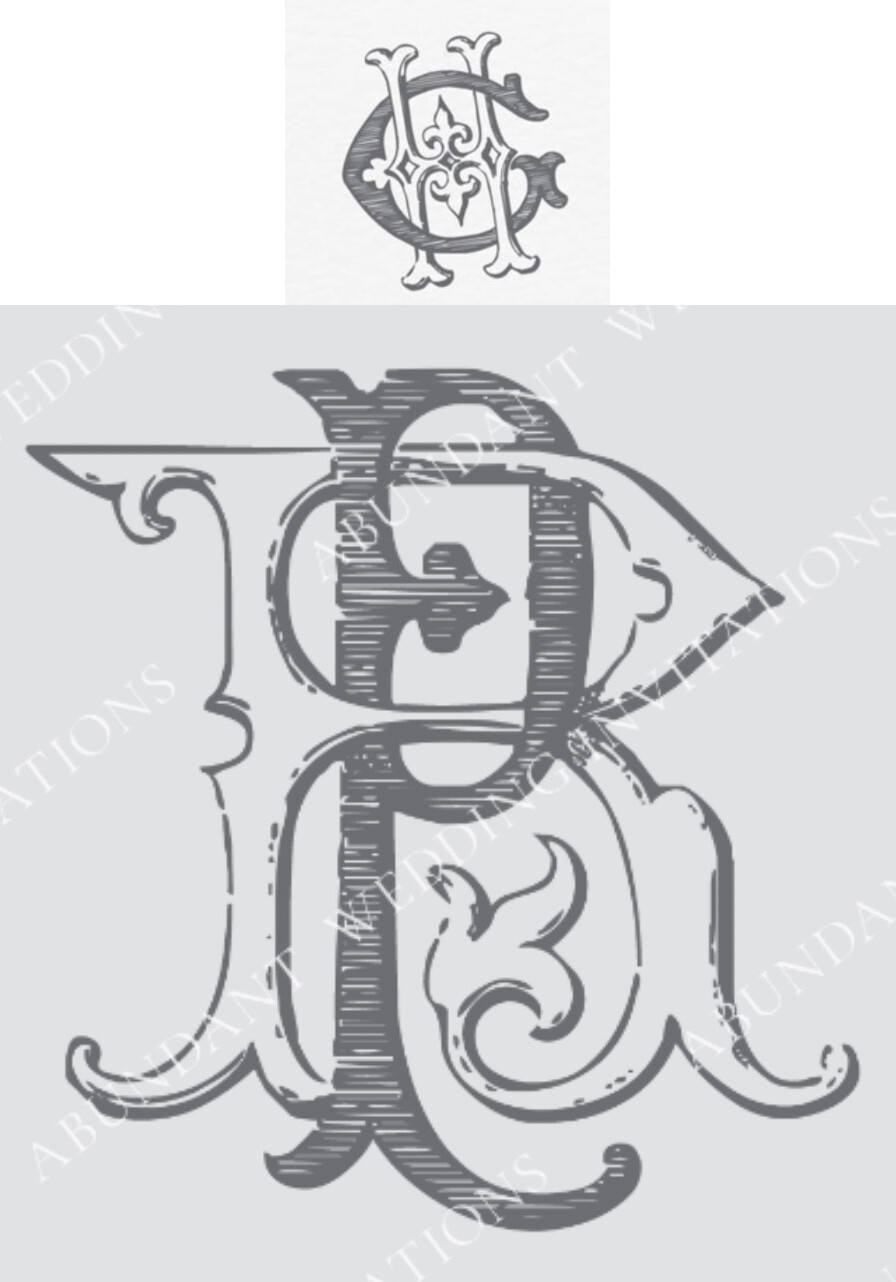
Anyone have any idea on one of these fonts or a suggestion to something close? Thanks for looking.
It’s one of those Monogram/Regal/Victorian fonts I swear I’ve seen before … but darned if I can pin point it.
It could be a Letterhead font as well.
This may help with bits and pieces … there seems to be a little of everything ![]()
It does have the feel of something from Letterhead Fonts. That was the first place I looked but didn’t have any luck.
Well I officially give up LOL … the way they are set up in My Fonts seems to be all jumbled. I can’t seem to narrow it down by style. And then clicking on 90% of the glyphs to blow them up brings up something entirely different.
There are many that look similar but I can’t get to the actual letter to double check. And btw … they are all called Victorian Monogram or Vintage Monogram LOLOL ![]()
And no other font site has them as far as I can tell. And the even stranger part is they already seem to be paried up.
I hope you want the initials they have.
Thanks, RKK, it is greatly appreciated. I was playing around with the sample feature on My Fonts, and it seemed a bit wonky. I don’t know if that’s a matter of glyphs and special characters or what. Anyway, thanks, again.
I have several books full of old engraving reproductions. There are many of these old letters and monograms in them. I suppose it’s possible there is no digital font and that they’re scans from books like these.
I think that’s probably what happened as well.